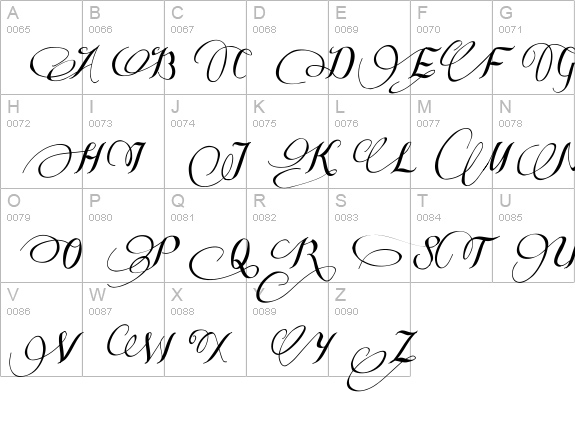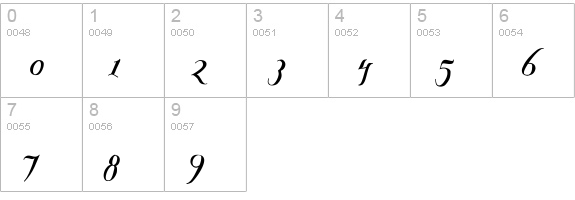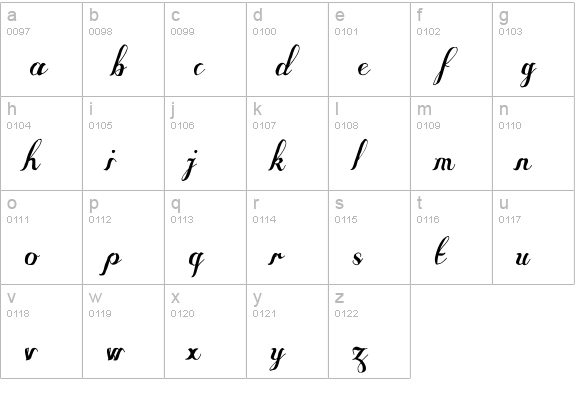
Some Weatz Swashes Font Details
Some Weatz Swashes font is a stunning and elegant typeface that will add a touch of sophistication to any design project. With its beautifully crafted swashes and intricate details, this font is perfect for adding a decorative element to invitations, logos, and branding materials. The flowing and graceful curves of Some Weatz Swashes font make it a versatile choice for both formal and informal designs. Whether you're looking to create a romantic wedding invitation or a stylish logo for a high-end fashion brand, this font will effortlessly elevate the overall aesthetic. One of the best things about Some Weatz Swashes font is that it is completely free. You can download it at FontsMarket.com, where it is readily available for anyone to use and enjoy. This means that you can incorporate this stunning font into your projects without having to worry about any additional costs. The versatility of Some Weatz Swashes font is further enhanced by its wide range of characters, including upper and lowercase letters, numbers, punctuation marks, and special symbols. This allows you to create unique and personalized designs that truly stand out. Whether you're a professional designer or a beginner, Some Weatz Swashes font is a must-have in your font collection. Its timeless elegance and free availability make it a valuable asset for any creative project. So don't hesitate, head over to FontsMarket.com and download Some Weatz Swashes font today to elevate your designs to new heights.